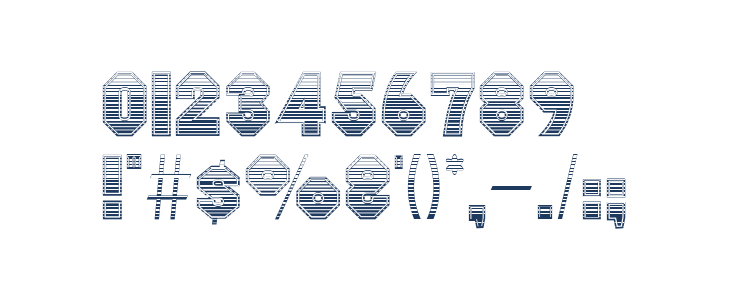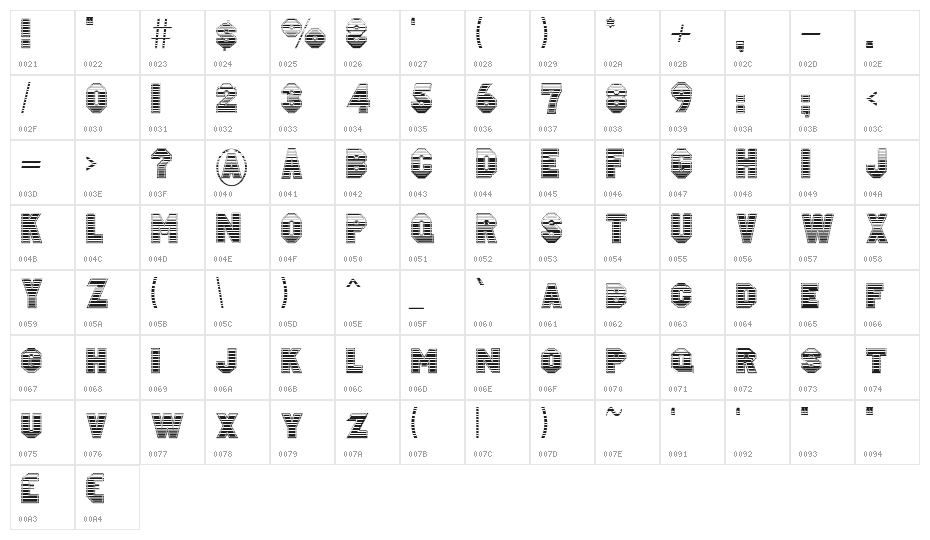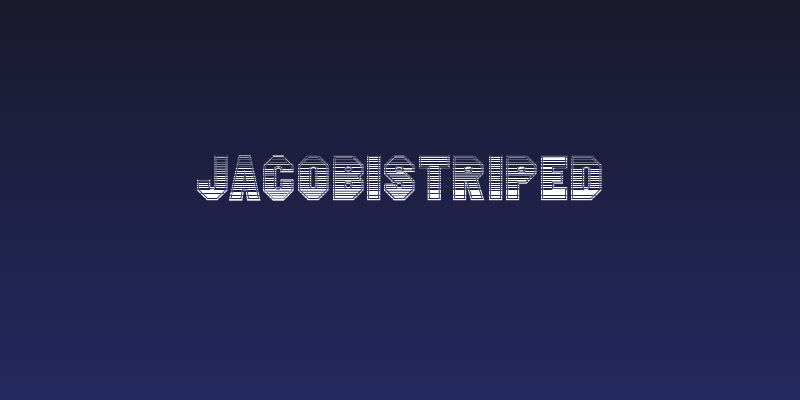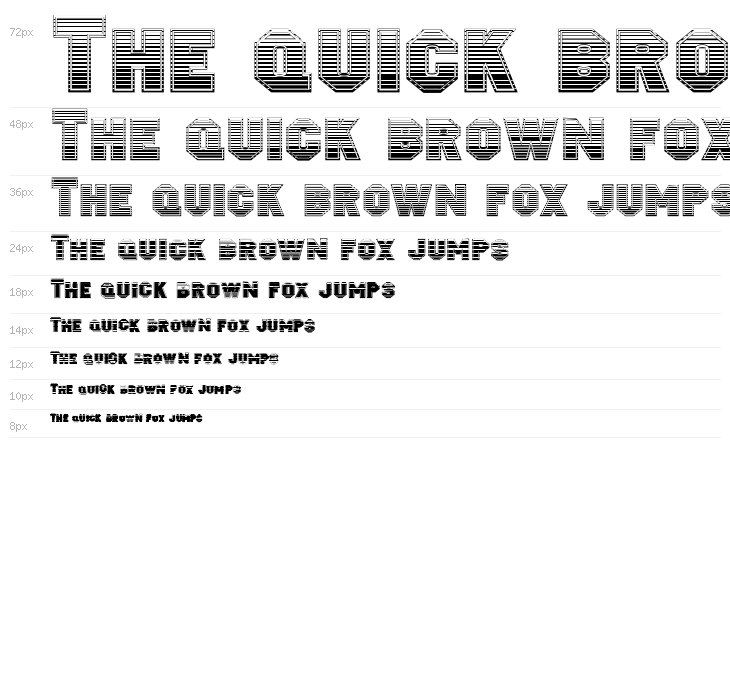
JacobiStriped Font
JacobiStriped Description
This font features a unique striped design, where each character is composed of horizontal lines creating a visually striking effect. The uppercase and lowercase letters maintain a consistent style, with clean and geometric shapes that emphasize the striped pattern. Numbers and special characters follow the same design principle, ensuring uniformity across all glyphs. The font's distinct appearance makes it ideal for creative and modern projects, adding a touch of flair and sophistication.
| Use Case | Logos, Posters, Digital Art |
| Proposed Projects | Ideal for branding, posters, and digital artwork where a modern and creative touch is desired. |